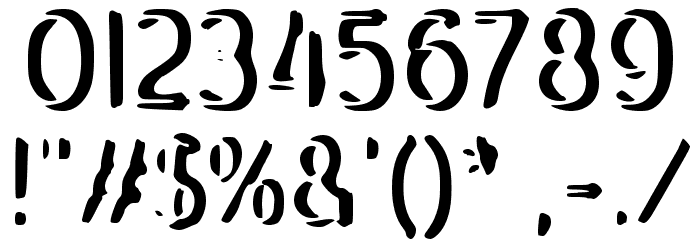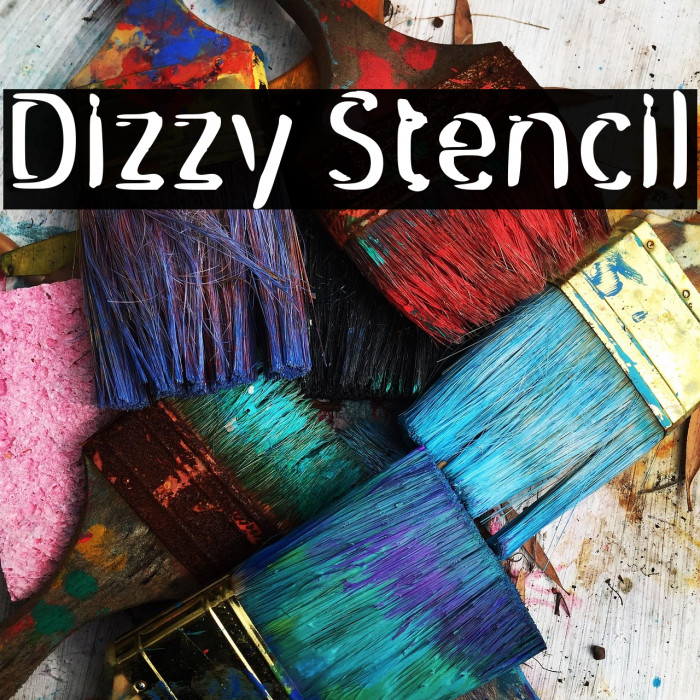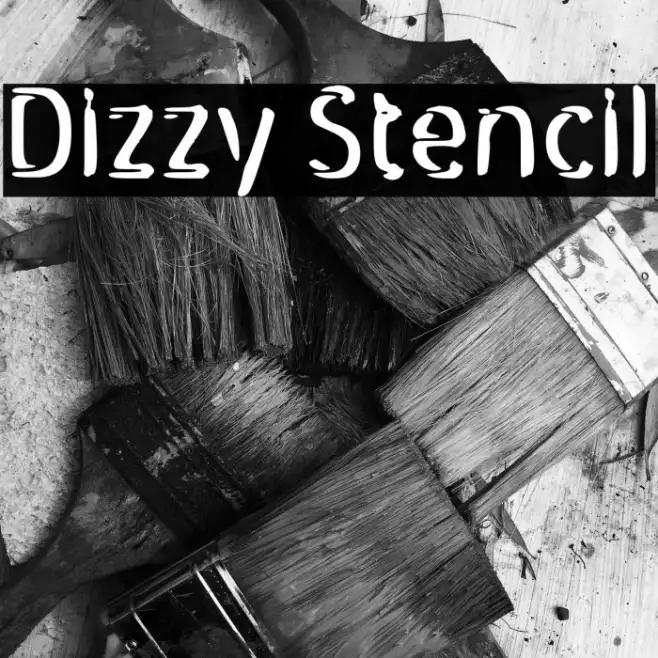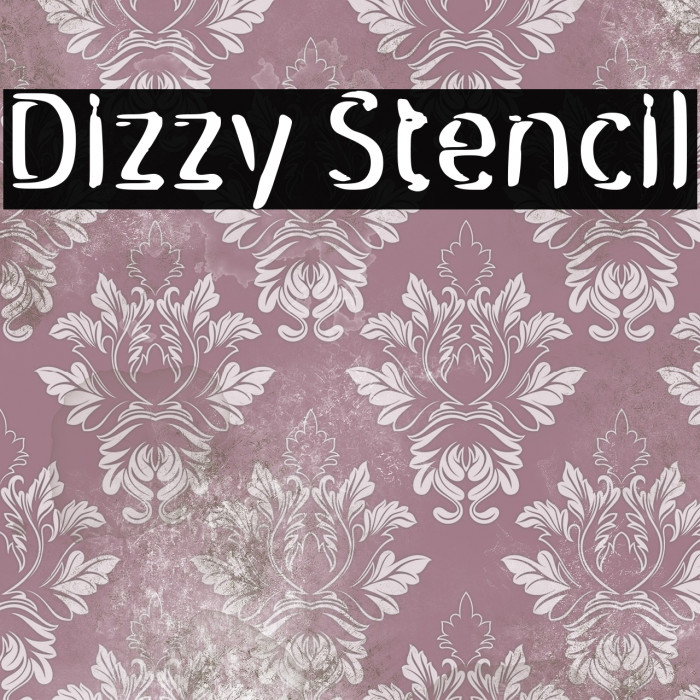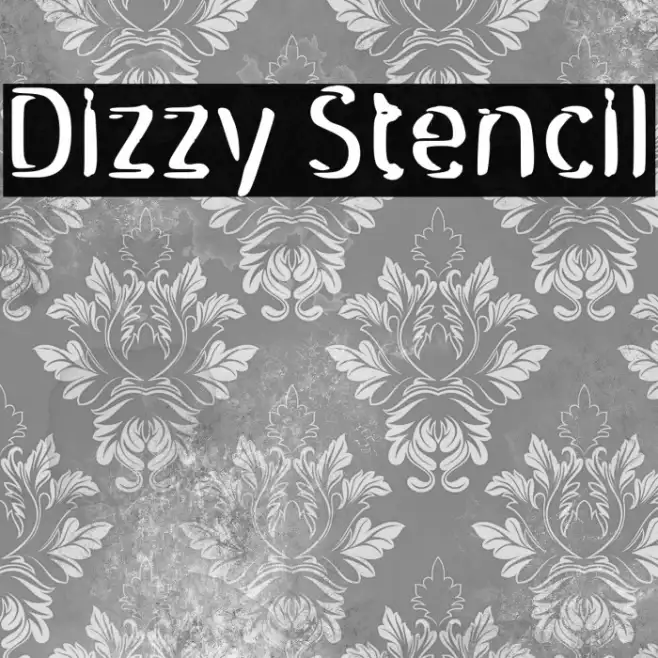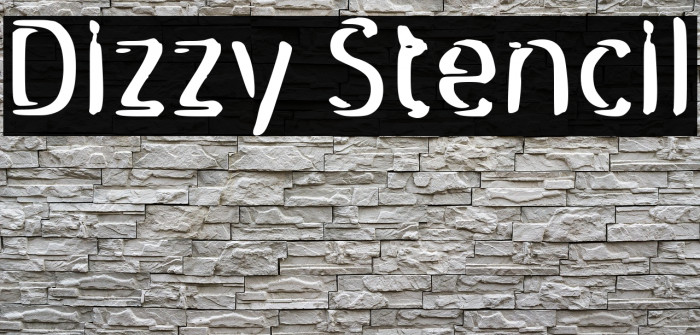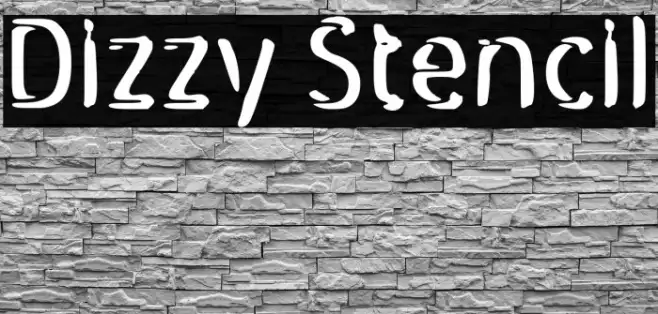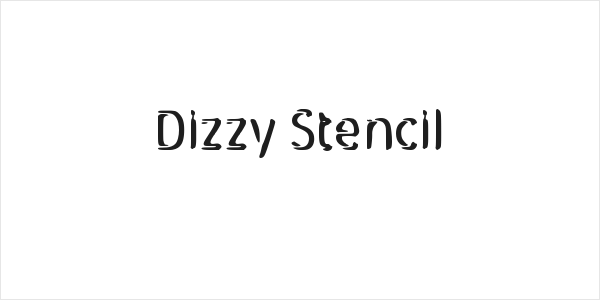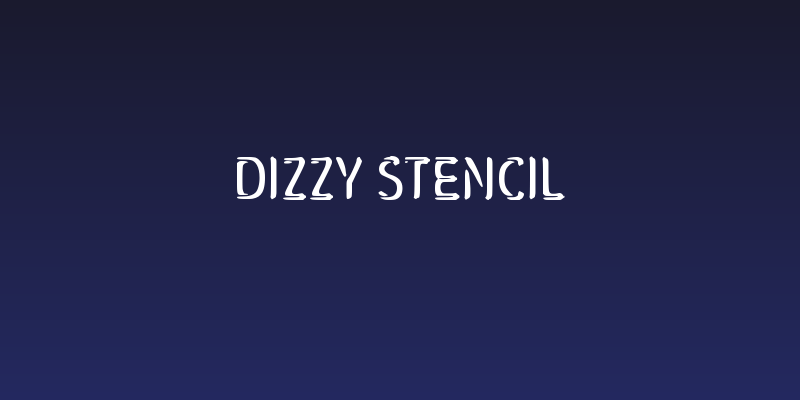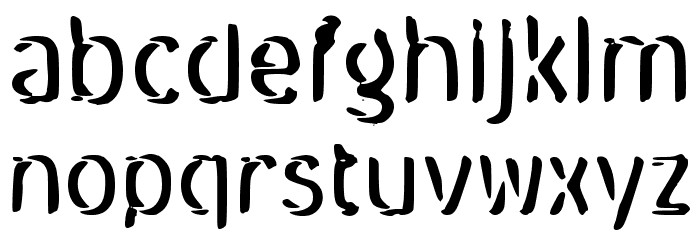
Dizzy Stencil Font
Dizzy Stencil Description
This font features a unique stencil design with a playful and dynamic appearance. The characters are bold and have a distinct cut-out style, giving them a modern and edgy look. The uppercase and lowercase letters maintain a consistent design, with rounded edges and sharp angles that create a sense of movement. The numbers and special characters follow the same aesthetic, ensuring a cohesive appearance across all text. This font is ideal for projects that require a bold statement and can be used to draw attention with its eye-catching style.